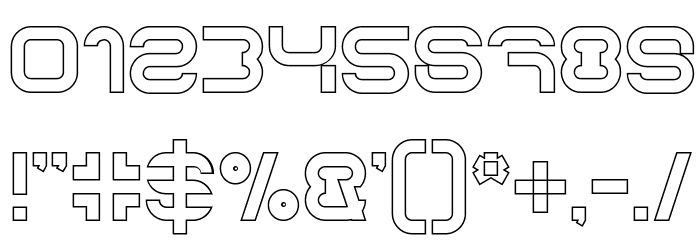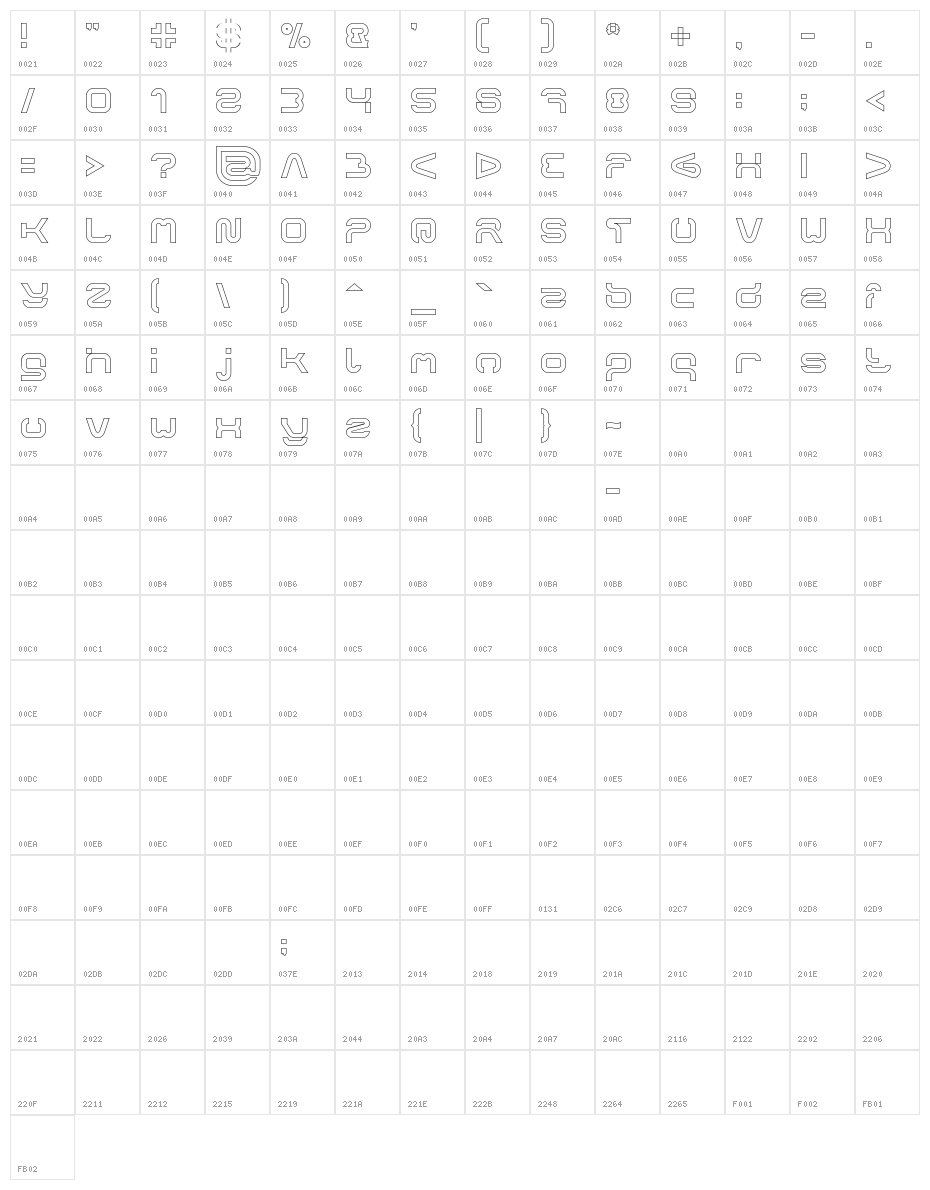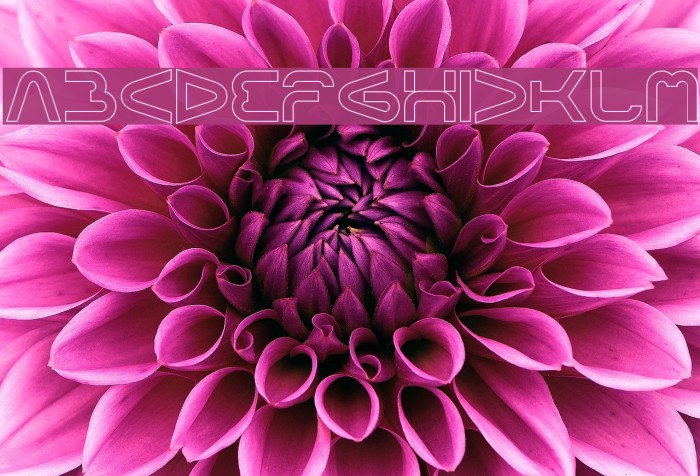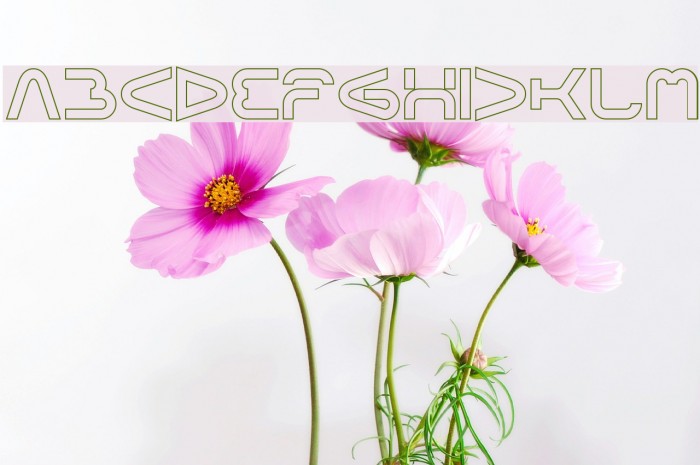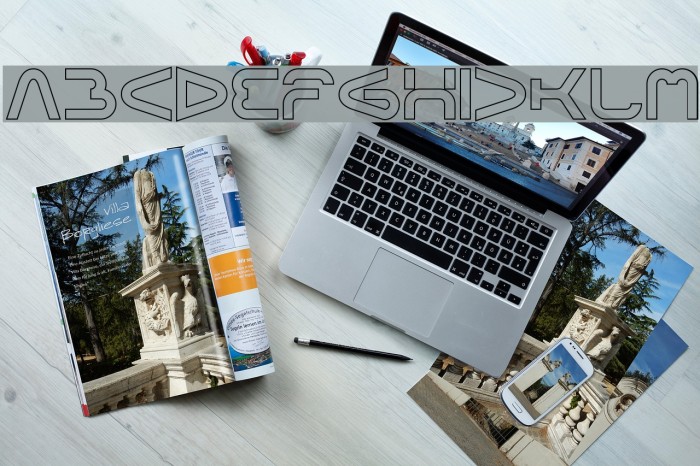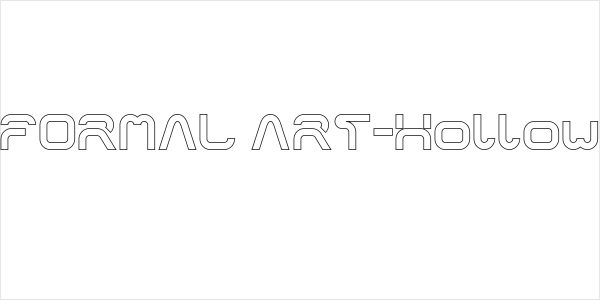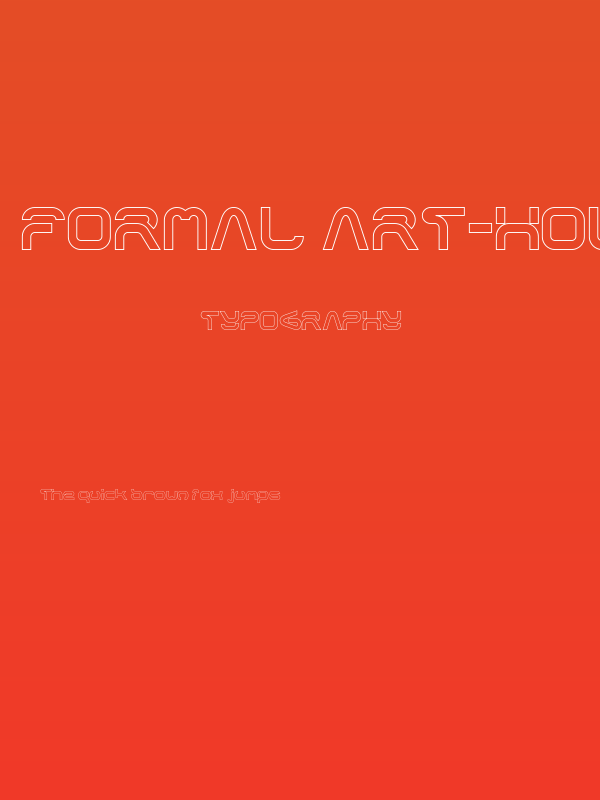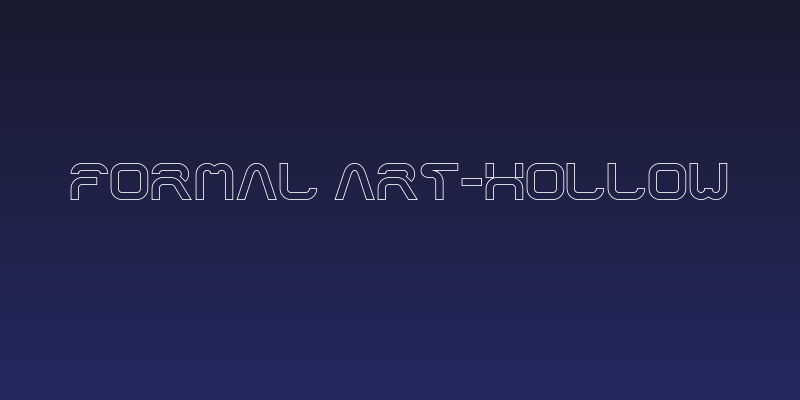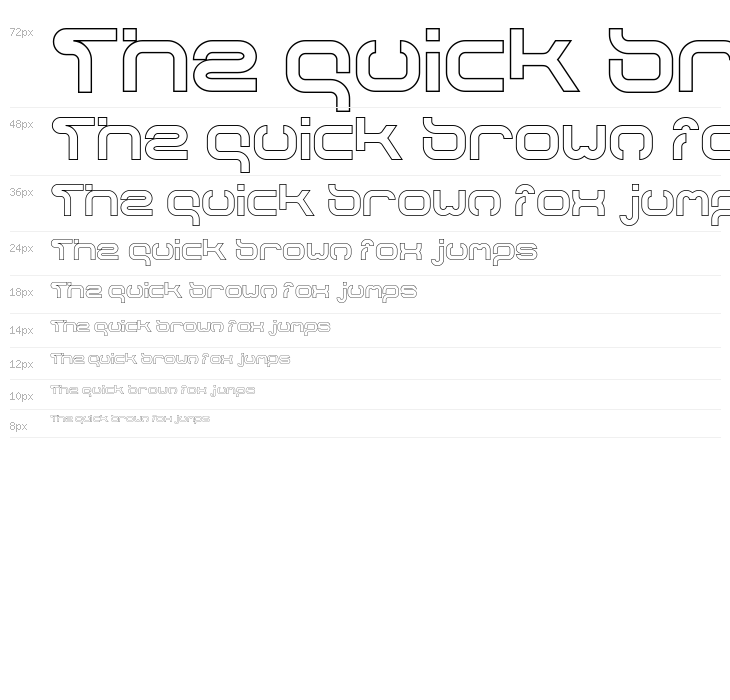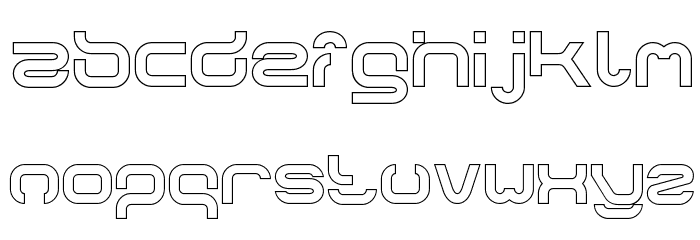
FORMAL ART-Hollow Font
FORMAL ART-Hollow Description
This font features a hollow, geometric design with a futuristic and modern aesthetic. The characters are outlined, creating a unique visual effect that emphasizes their shape and structure. The uppercase and lowercase letters maintain a consistent style, with angular and curved elements that give a sense of movement and dynamism. The numbers and special characters are designed to match the overall theme, ensuring a cohesive look across all glyphs. This font's distinct appearance makes it suitable for projects that require a bold and eye-catching typeface.
| Proposed Projects | Ideal for sci-fi themed designs, tech branding, posters, and digital artwork. |